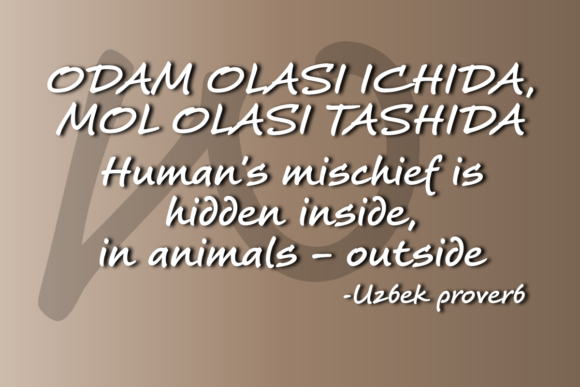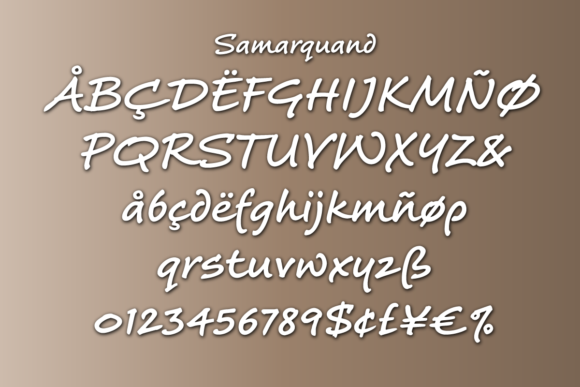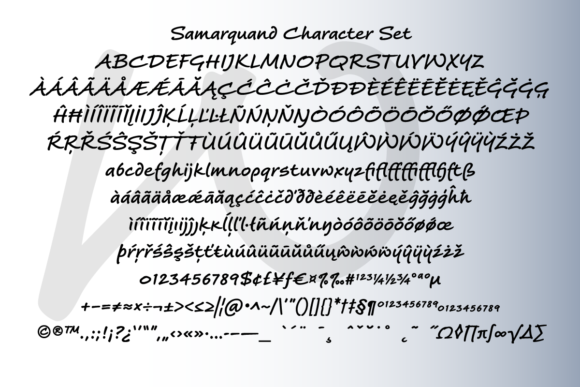
Samarquand Font
About Samarquand Font
Introducing “Samarquand,” an interesting handwritten font that exudes lovely poetic vibes. With its elegant and charming style, this typeface is sure to make a captivating addition to your fonts library.
Samarquand features unique letterforms that have been carefully crafted to create a sense of artistry and beauty. The flowing lines and graceful curves of each character give the font a sense of sophistication and elegance, making it perfect for a variety of design projects.
Whether you’re working on wedding invitations, greeting cards, quotes, logos, or any other creative endeavor, Samarquand will add a touch of charm and personality. Its handwritten nature adds a sense of warmth and authenticity to your designs, making them feel more personal and inviting.
The poetic vibes of Samarquand are evident in its graceful strokes and delicate details. The font carries a sense of romance and enchantment, making it ideal for projects that evoke emotions and tell stories. From handwritten love letters to elegant poetry books, Samarquand will bring an element of beauty and sophistication to your work.
Additionally, Samarquand is highly versatile and can be used across various design applications. Its distinct style and attention to detail make it a great choice for branding, packaging, social media graphics, editorial designs, and more. It’s a font that can truly elevate your designs and make them stand out.
In summary, Samarquand is an interesting handwritten font that emanates lovely poetic vibes. Its elegance and charm make it a wonderful addition to any fonts library. So, let Samarquand inspire your creativity and bring a touch of beauty to your design projects.